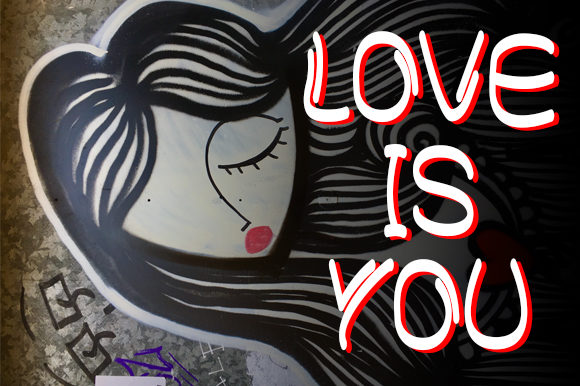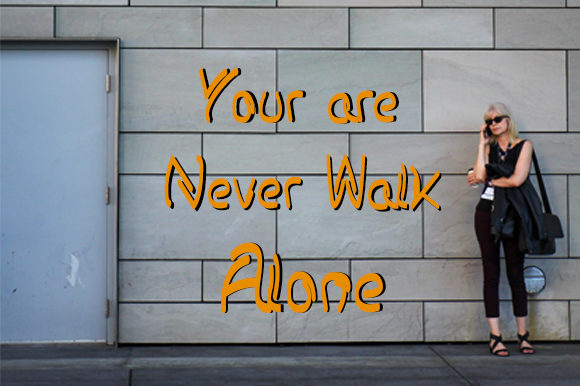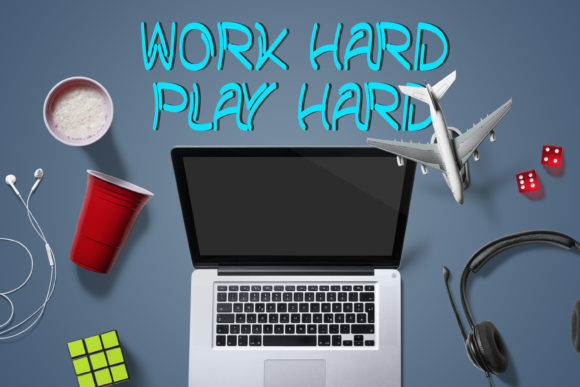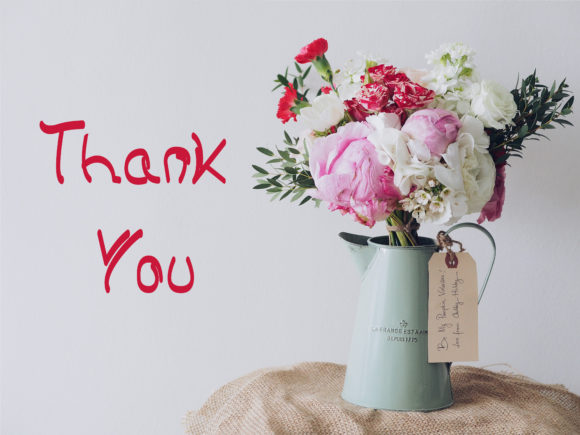
Bokier Font: The Perfect Playful and Modern Display Font for Designers and Crafters
In the world of typography, fonts play a crucial role in conveying the tone and personality of a brand or project. For designers and crafters looking for a font that is both playful and modern, Bokier Font is an excellent choice. This clean and quirky display font is perfect for logos, branding, social media, and DIY projects. In this article, we’ll explore the features and benefits of Bokier Font and why it’s a great addition to your typography collection.
What is Bokier Font?
Bokier Font is a modern display font designed to add a touch of playfulness and whimsy to your designs. Its clean lines and quirky charm make it an ideal font for projects that require a bit of personality. Whether you’re creating a logo, branding materials, or social media graphics, Bokier Font is sure to make your design stand out.
Key Features of Bokier Font
• Playful and Modern Design: Bokier Font boasts a unique and modern design that is both playful and eye-catching.
• Clean Lines: The font features clean lines and a simple design, making it easy to read and versatile for various design applications.
• Quirky Charm: Bokier Font has a quirky charm that adds a touch of personality to your designs, making them more engaging and memorable.
• Multipurpose: This font is perfect for a wide range of design projects, including logos, branding, social media graphics, and DIY craft projects.
Benefits of Using Bokier Font
So, why choose Bokier Font for your design projects? Here are some benefits of using this versatile font:
• Stand Out Designs: Bokier Font helps you create designs that stand out from the crowd, making your brand or project more noticeable and memorable.
• Easy to Read: Despite its playful design, Bokier Font is easy to read, making it perfect for body text and headings.
• Customizable: The font is highly customizable, allowing you to adjust the size, color, and style to fit your design needs.
• Time-Saving: With Bokier Font, you can save time and effort in creating custom typography for your designs.
Use Cases for Bokier Font
Bokier Font is a versatile font that can be used in various design projects. Here are some use cases where Bokier Font shines:
• Logos and Branding: Create a unique and memorable logo for your brand with Bokier Font.
• Social Media Graphics: Use Bokier Font to create eye-catching social media graphics, including Facebook posts, Instagram stories, and Twitter headers.
• DIY Craft Projects: Add a personal touch to your DIY craft projects, such as handmade cards, gift tags, and posters.
• Web Design: Use Bokier Font as a display font for headings, titles, and captions on your website.
In conclusion, Bokier Font is a playful and modern display font that is perfect for designers and crafters looking to add a touch of personality to their designs. Its clean lines, quirky charm, and versatility make it an excellent choice for a wide range of design projects. Whether you’re creating logos, branding materials, social media graphics, or DIY craft projects, Bokier Font is sure to make your design stand out.